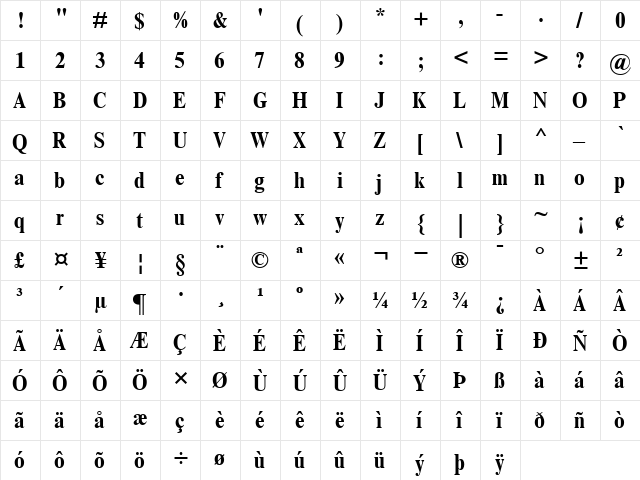
TimesNewRomanMT-Condensed Bold Font Preview
Design Context for TimesNewRomanMT-Condensed Typeface
TimesNewRomanMT-Condensed offers clean, dependable letterforms without strong stylistic allegiance, making it a practical choice for designers who need flexibility. The heavy weight commands attention and anchors typographic hierarchies. Its narrow stance lets it pack a punch even in space-constrained designs.